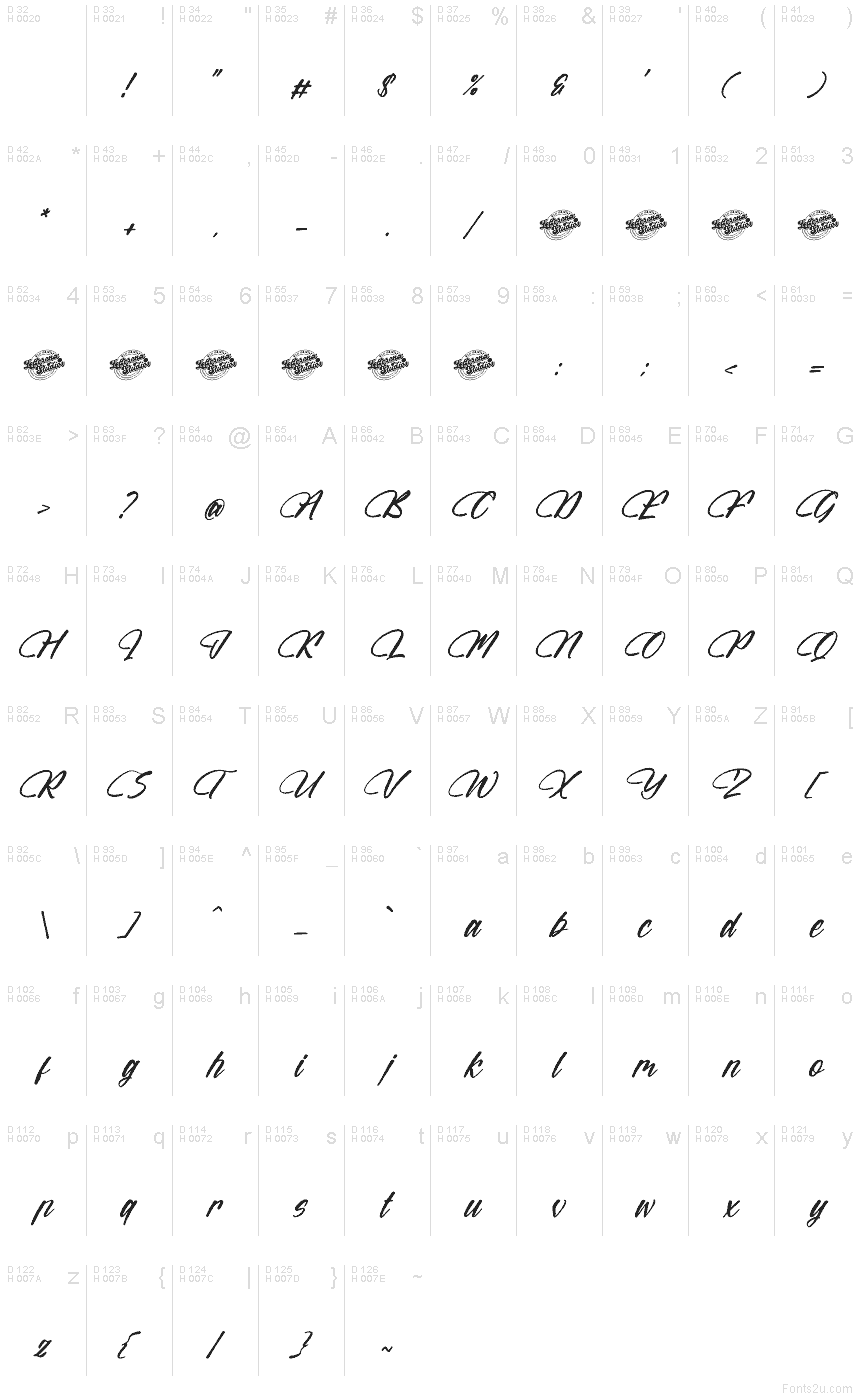
Wintter Bronks DEMO VERSION Italic
Wintter Bronks Italic font from Letterena Studios is a brush calligraphy script with an elegant and sophisticated appearance. Expressive, decorative, and cursive, it impresses with delicate flowing lines that create harmony and pleasant typography results. Let the charming character of this vintage-inspired premium font transform your print and digital projects.